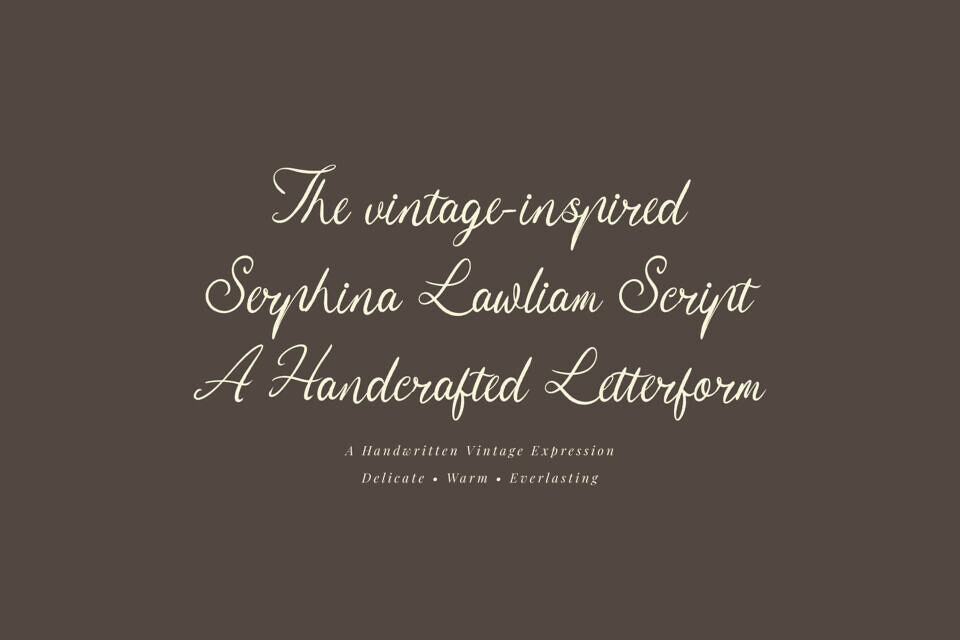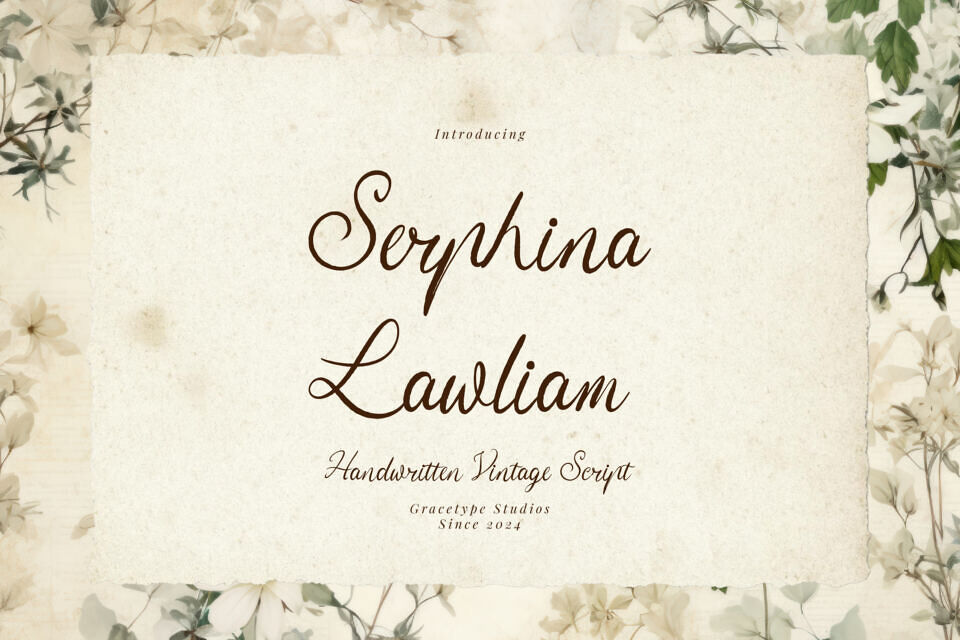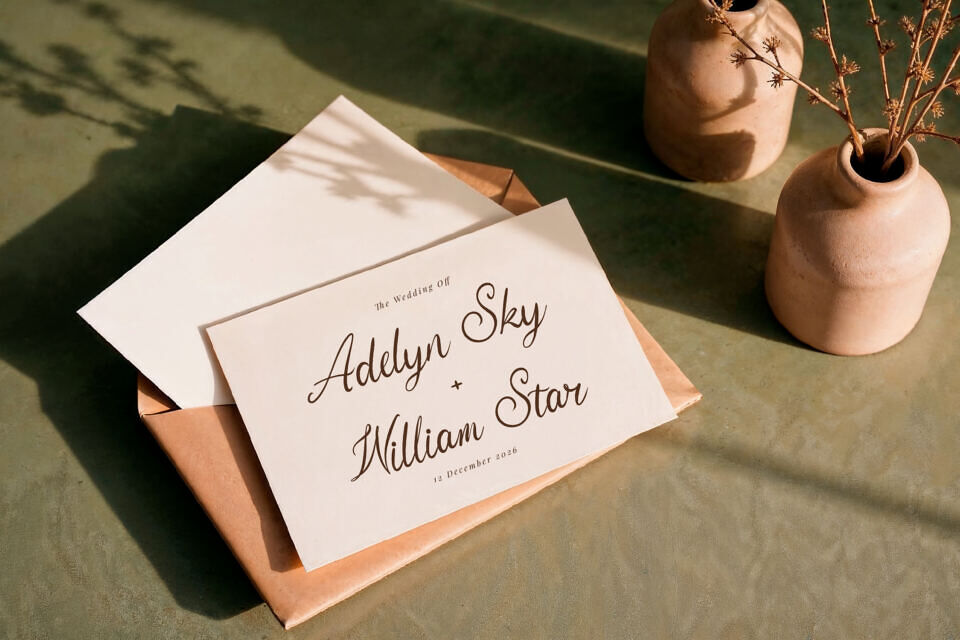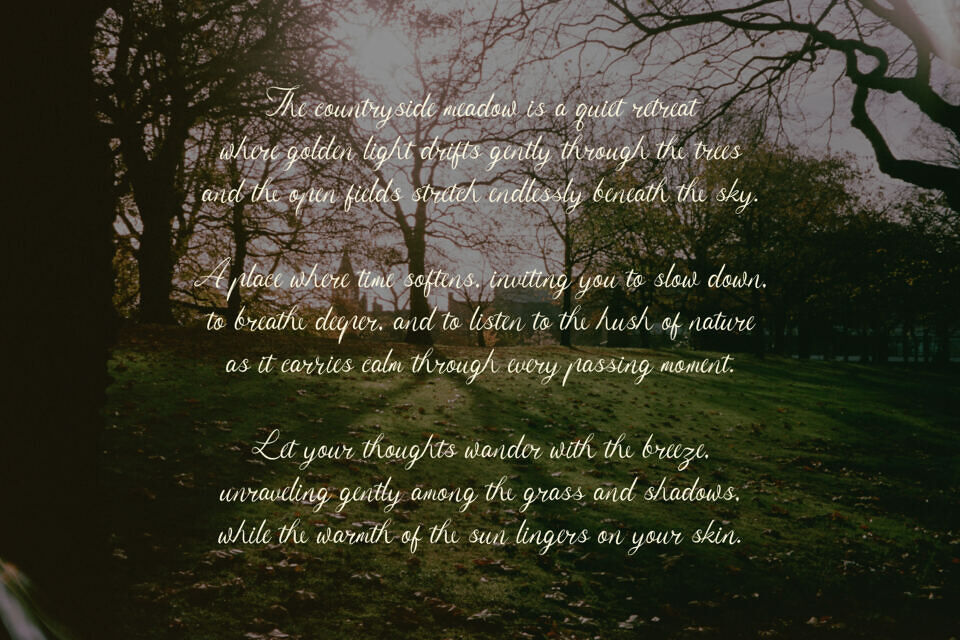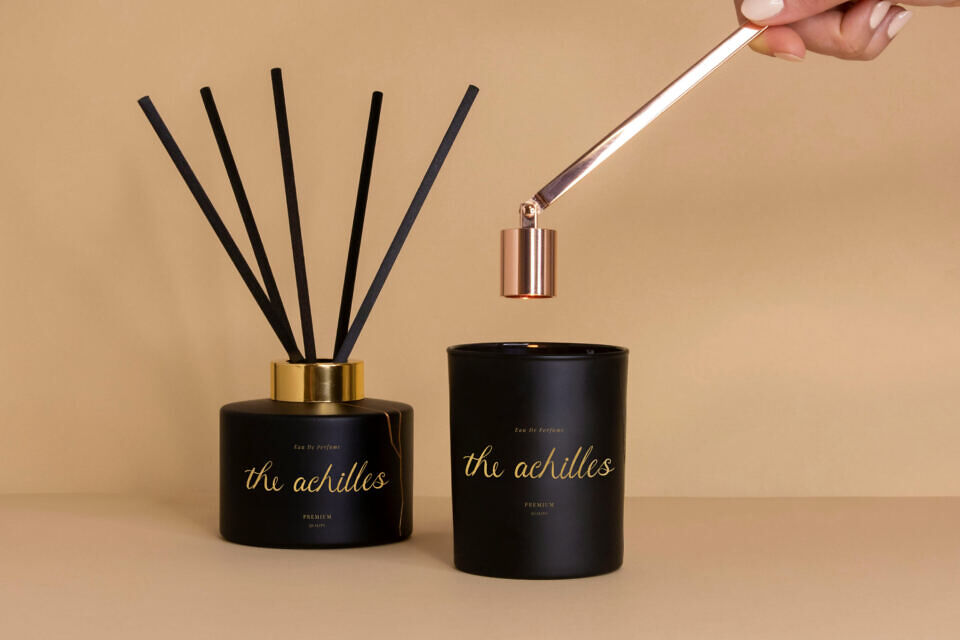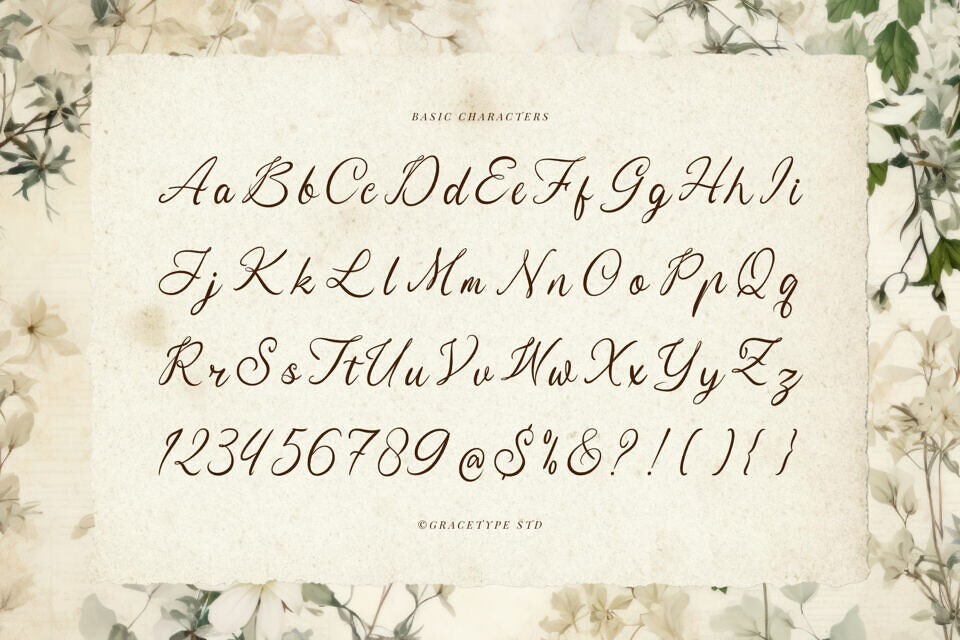
Serphina Lawliam Font
Discover the charm of a bygone era with Serphina Lawliam, a handwritten vintage script that breathes life into classic designs. This font features a delicate, rhythmic flow with expressive loops and a warm, organic feel that mimics authentic fountain pen ink on textured paper.
Its timeless silhouette makes it an exquisite choice for botanical branding, antique-inspired wedding invitations, nostalgic product labels, and personalized stationery. Serphina Lawliam bridges the gap between old-world romanticism and modern elegance, turning every letter into a piece of history.